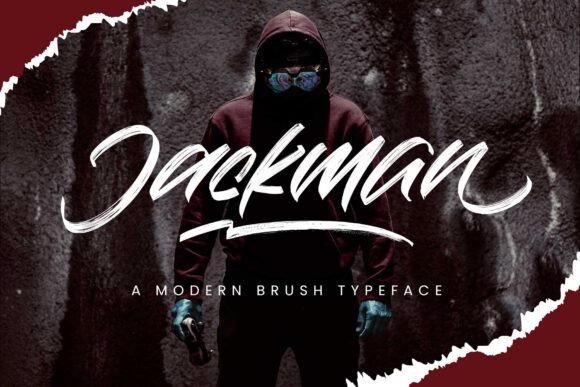
Introducing Jackman Font: The Ultimate Choice for a Progressive and Dynamic Vibe
In the world of typography, fonts play a crucial role in conveying the tone and personality of a design. When it comes to creating a bold and eye-catching look, the right font can make all the difference. This is where Jackman Font comes in – a freestyle brush font that adds a touch of joyfulness and energy to any design. In this article, we’ll explore the unique features of Jackman Font and why it’s the perfect choice for designers seeking a progressive and dynamic vibe.
What is Jackman Font?
Jackman Font is a carefully crafted freestyle brush font that boasts natural, textured strokes. These strokes add a sense of warmth and authenticity to the font, making it truly stand out from other fonts in its category. The font’s unique texture and boldness make it an excellent choice for display and headline uses, such as logotypes, stories, magazines, posters, events, apparel, motion graphics, and more.
The Unique Features of Jackman Font
So, what sets Jackman Font apart from other fonts? Here are some of its key features:
- Natural, textured strokes: Jackman Font’s strokes have a natural, hand-crafted feel that adds a touch of warmth and authenticity to any design.
- Clean texture: Despite its textured strokes, Jackman Font maintains a clean and elegant look that’s perfect for a wide range of design applications.
- Boldness and elegance: Jackman Font strikes the perfect balance between boldness and elegance, making it an excellent choice for designers seeking a font that’s both eye-catching and sophisticated.
- Energy and joyfulness: Jackman Font’s unique texture and strokes convey a sense of energy and joyfulness, making it perfect for informal projects and designs that require a playful touch.
The Benefits of Using Jackman Font
So, why should you choose Jackman Font for your design projects? Here are some of the benefits of using this amazing font:
- Perfect for informal projects: Jackman Font is ideal for informal projects, such as posters, flyers, and social media graphics, where a playful and energetic vibe is required.
- Great for display and headline uses: Jackman Font’s boldness and elegance make it an excellent choice for display and headline uses, such as logotypes, stories, magazines, and more.
- Easy to read: Despite its bold and textured strokes, Jackman Font is easy to read, even at smaller sizes.
- Versatile: Jackman Font can be used for a wide range of design applications, from print to digital media.
How to Use Jackman Font in Your Designs
Now that we’ve explored the features and benefits of Jackman Font, let’s take a look at how to use it in your designs:
- Pair it with a simple font: Jackman Font’s boldness and texture can be overwhelming if paired with another bold font. Pair it with a simple font to create a beautiful contrast.
- Use it for headlines and titles: Jackman Font is perfect for headlines and titles, where its boldness and elegance can shine.
- Experiment with colors: Jackman Font’s textured strokes look amazing with bold and bright colors. Experiment with different colors to find the perfect combination for your design.
- Use it for branding and logos: Jackman Font’s unique texture and strokes make it an excellent choice for branding and logos, where a bold and eye-catching look is required.
Tips and Tricks for Getting the Most Out of Jackman Font
Here are some tips and tricks for getting the most out of Jackman Font:
- Use it in combination with images: Jackman Font’s textured strokes look amazing when combined with images. Use it to add a touch of elegance and sophistication to your designs.
- Experiment with different sizes: Jackman Font looks great at different sizes, from small to large. Experiment with different sizes to find the perfect fit for your design.
- Use it for packaging design: Jackman Font’s boldness and elegance make it an excellent choice for packaging design, where a bold and eye-catching look is required.
- Create a custom look: Jackman Font’s unique texture and strokes can be customized to create a unique look that suits your brand’s personality.
In conclusion, Jackman Font is an amazing freestyle brush font that adds a touch of joyfulness and energy to any design. Its unique texture and strokes make it perfect for informal projects, display and headline uses, and a wide range of design applications. With its boldness, elegance, and versatility, Jackman Font is an excellent choice for designers seeking a progressive and dynamic vibe.
- What is Jackman Font? Jackman Font is a freestyle brush font with natural, textured strokes that add a touch of joyfulness and energy to any design.
- What is Jackman Font used for? Jackman Font is perfect for informal projects, display and headline uses, such as logotypes, stories, magazines, posters, events, apparel, motion graphics, and more.
- Is Jackman Font easy to read? Yes, Jackman Font is easy to read, even at smaller sizes.